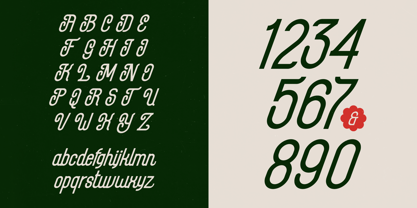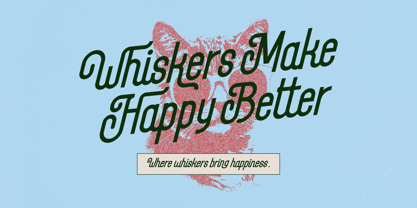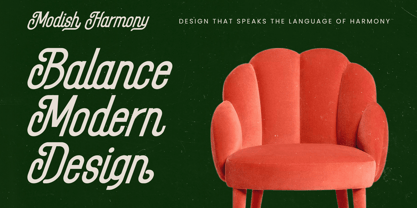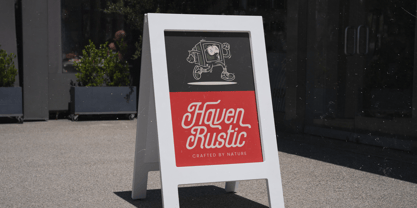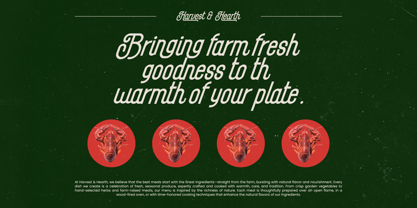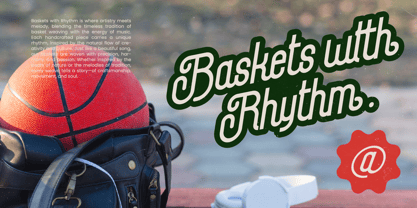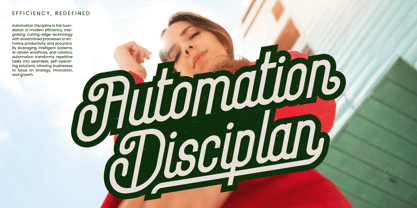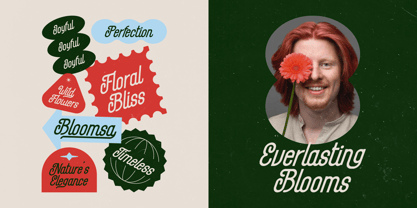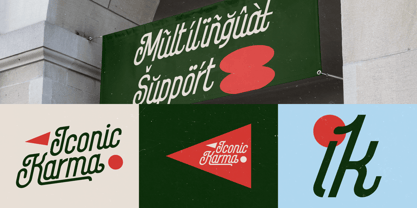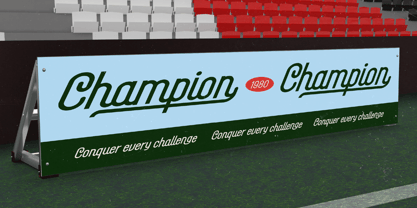
Maxplein
by Timelesstype Studio
The Maxplein Font Family was designed by Heru Utama Putra and published by Timelesstype Studio. Maxplein contains 2 styles and family package options.
Maxplein - Modern Script Bold Logotype Font , from Timelesstype, Suitable for any projects such as: logos, branding projects, homeware designs, product packaging, mugs, quotes, posters, shopping bags, t-shirts, book covers, name card, invitation cards, greeting cards, label, photography, watermark, special events, and all your other luxury and beautiful projects that need a Luxury Script taste.